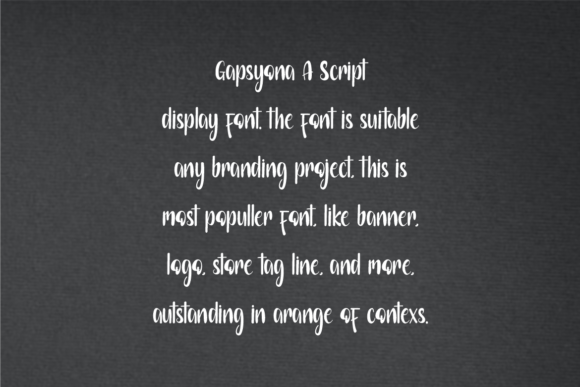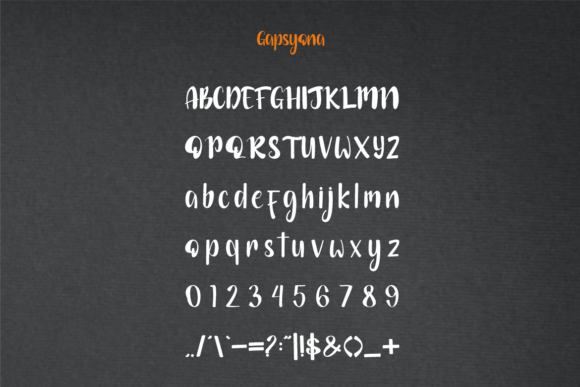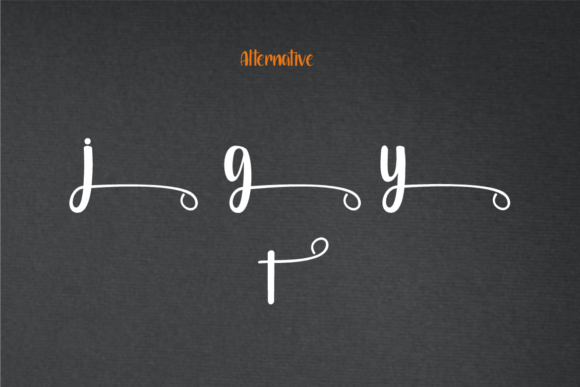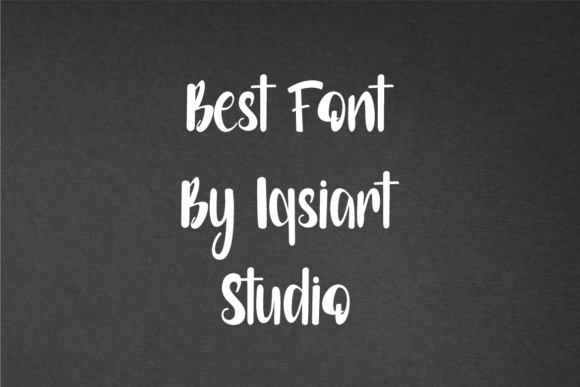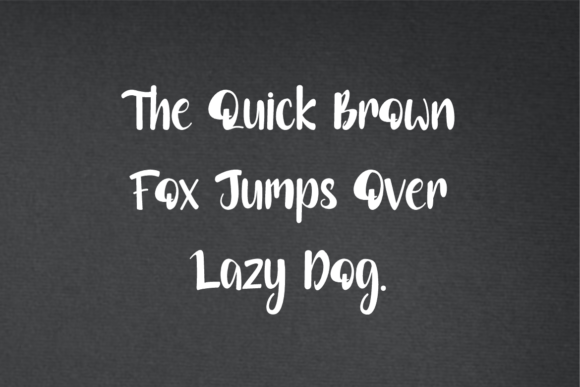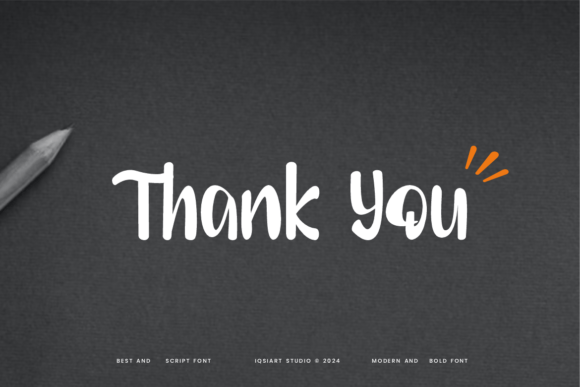
Gapsyona Font: Elevate Your Designs with a Charming Handwritten Script
In the world of typography, fonts play a crucial role in conveying the tone and personality of a brand or design. For designers and crafters looking to add a personal and modern touch to their work, Gapsyona Font is an excellent choice. This charming handwritten script font strikes the perfect balance between boldness and elegance, making it ideal for a wide range of creative projects.
The Unique Characteristics of Gapsyona Font
Gapsyona Font boasts smooth curves and a playful style that sets it apart from other fonts. Its unique blend of bold and elegant features makes it perfect for designers who want to add a creative flair to their work. Whether you’re creating logos, invitations, social media posts, or branding projects, Gapsyona Font is sure to make a lasting impression.
One of the standout features of Gapsyona Font is its versatility. Its smooth, flowing lines and playful curves make it perfect for a wide range of design projects, including:
- Logos: Create a bold and memorable logo that showcases your brand’s personality with Gapsyona Font.
- Invitations: Add a touch of elegance and sophistication to your invitations, whether it’s for a wedding, birthday party, or other special occasion.
- Social Media Posts: Make your social media posts stand out with Gapsyona Font’s playful and modern style.
- Branding Projects: Use Gapsyona Font to create a consistent brand identity that reflects your company’s values and personality.
Why Choose Gapsyona Font?
So, why should you choose Gapsyona Font for your design projects? Here are just a few reasons:
- Unique and Creative: Gapsyona Font offers a fresh and creative take on traditional handwritten script fonts.
- Easy to Read: Despite its bold and playful style, Gapsyona Font is easy to read, making it perfect for body text and headlines.
- Customizable: Gapsyona Font can be customized to fit your design needs, allowing you to add your own personal touch.
- Modern and Trendy: Gapsyona Font has a modern and trendy feel that’s sure to appeal to designers and crafters who want to stay ahead of the curve.
Tips for Using Gapsyona Font Effectively
To get the most out of Gapsyona Font, here are a few tips to keep in mind:
- Use it as a Headline Font: Gapsyona Font is perfect for headlines and titles, where its bold and playful style can really shine.
- Pair it with Other Fonts: Experiment with pairing Gapsyona Font with other fonts to create a unique and visually appealing design.
- Adjust the Size and Color: Don’t be afraid to adjust the size and color of Gapsyona Font to fit your design needs.
In conclusion, Gapsyona Font is a charming handwritten script font that offers a unique blend of boldness and elegance. Its smooth curves and playful style make it perfect for a wide range of design projects, from logos and invitations to social media posts and branding projects. With its creative flair and modern vibe, Gapsyona Font is sure to elevate your designs and help you stand out in a crowded design landscape.
Get Ready to Elevate Your Designs with Gapsyona Font